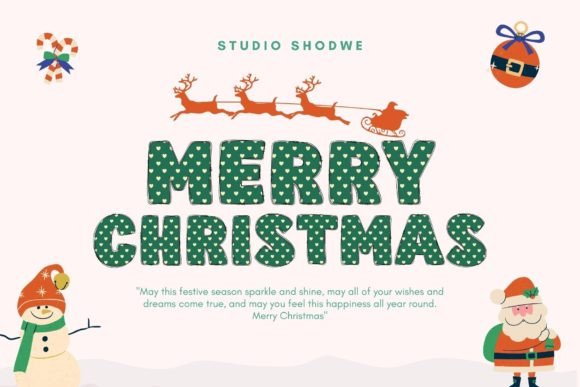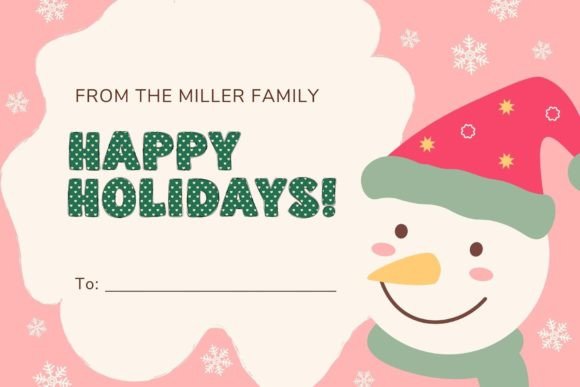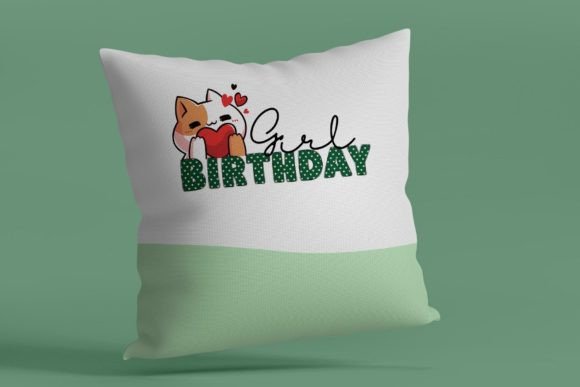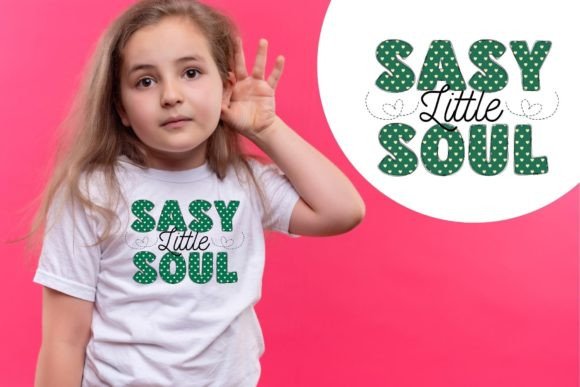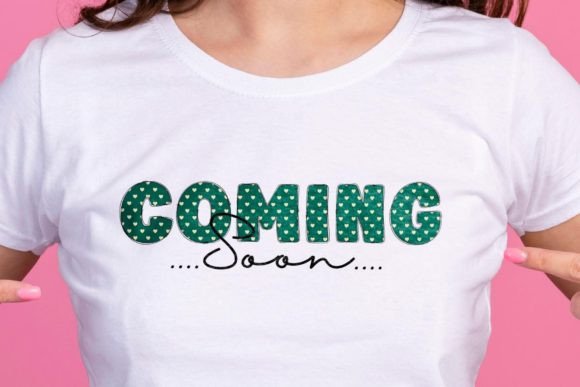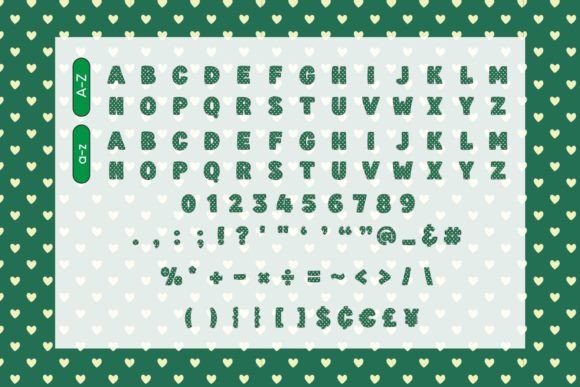
Discover the Magic of Fox Xmas-v4 Font: A Designer’s Delight
Ah, the quest for the perfect font! It’s a designer’s eternal struggle. I recall working on a Christmas-themed project last year, pouring over font libraries, and feeling like I was stuck in a design rut. That was until I stumbled upon the Fox Xmas-v4 font. Its unique charm and colorful personality instantly elevated my design, and I knew I had to share it with fellow creatives. In this article, we’ll dive into the world of Fox Xmas-v4, exploring its features, uses, and some clever workarounds.
A Personal Review: What I Love About Fox Xmas-v4
So, what makes Fox Xmas-v4 so special? Here are a few things that caught my attention:
• Authentic feel: Fox Xmas-v4 has a genuine, hand-crafted look that adds a touch of warmth to any design.
• Colorful personality: This font is a true showstopper, with its full-color OpenType (SVG) features that make it perfect for eye-catching social media posts, invitations, and greeting cards.
• 🎉 Versatility: Use it for a variety of creative projects, from beautiful stationary art to cute holiday cards.
While Fox Xmas-v4 is an amazing font, there are a few things to keep in mind:
The Story Behind Fox Xmas-v4
While the origins of Fox Xmas-v4 might be shrouded in mystery, it’s clear that the designer was inspired by the magic of the holiday season. Imagine a designer, sipping hot cocoa by the fireplace, brainstorming ideas for a font that captures the essence of Christmas. With Fox Xmas-v4, they’ve created a true masterpiece that brings joy and festivity to any design.